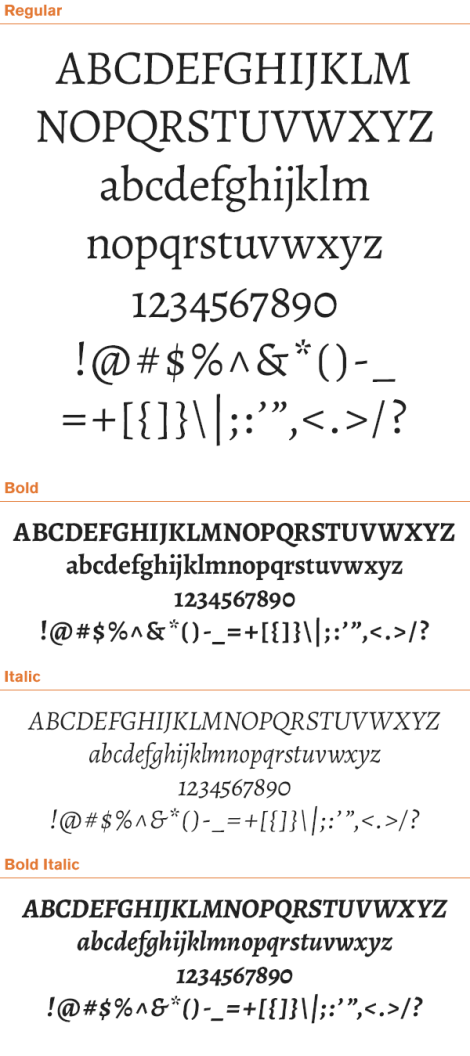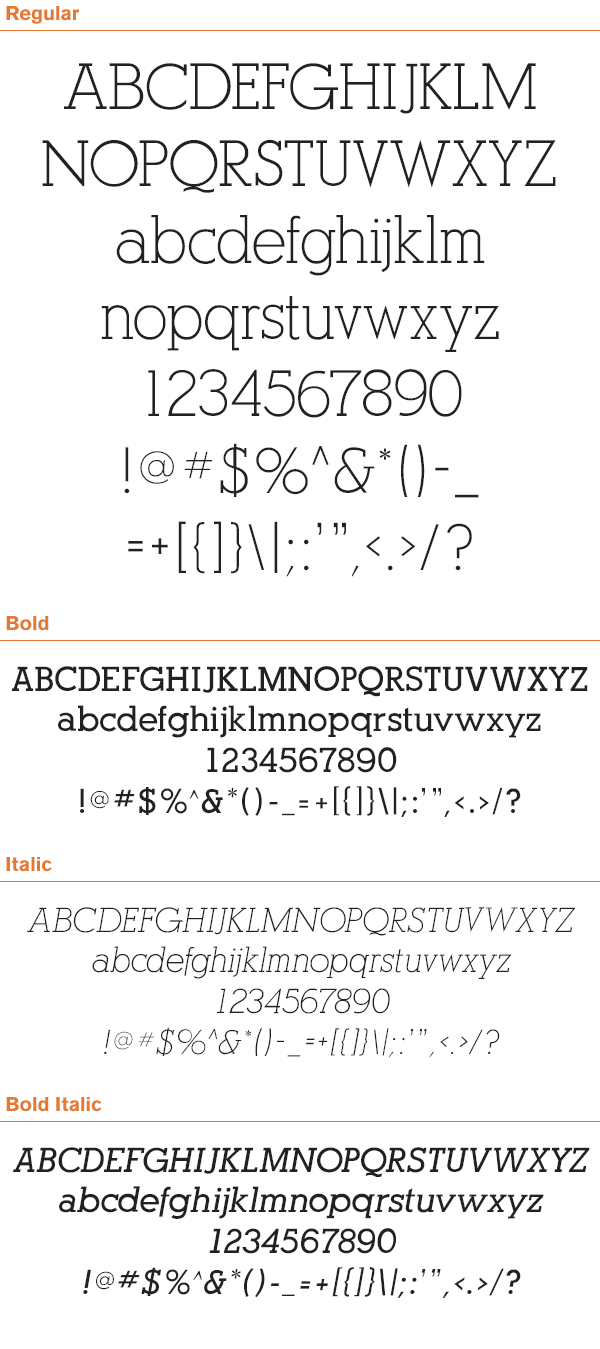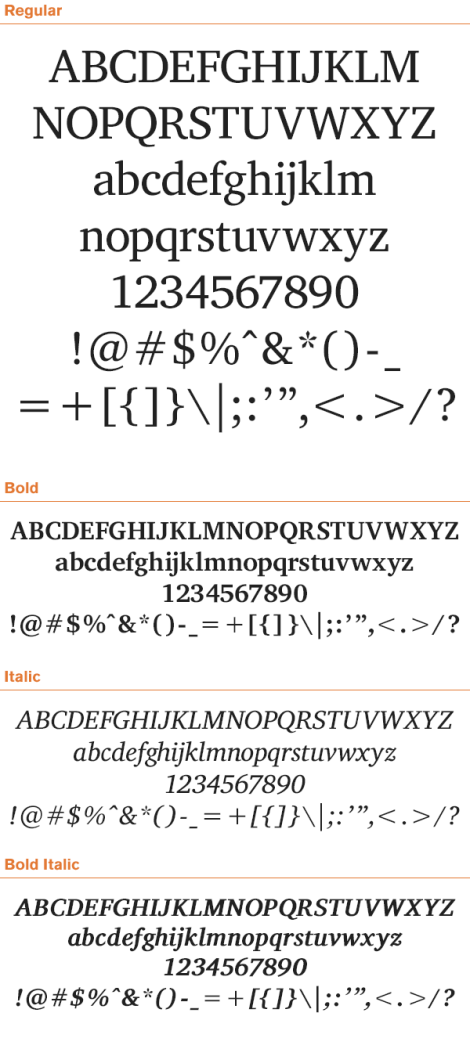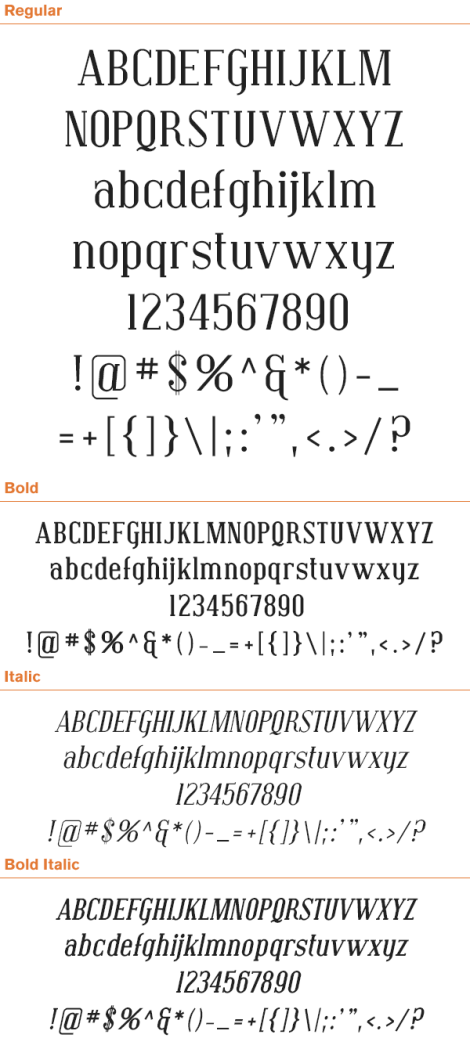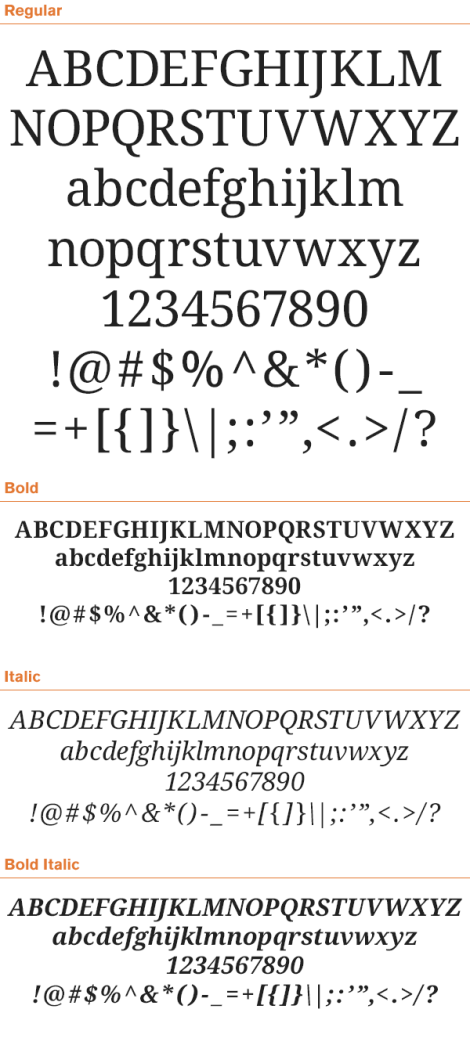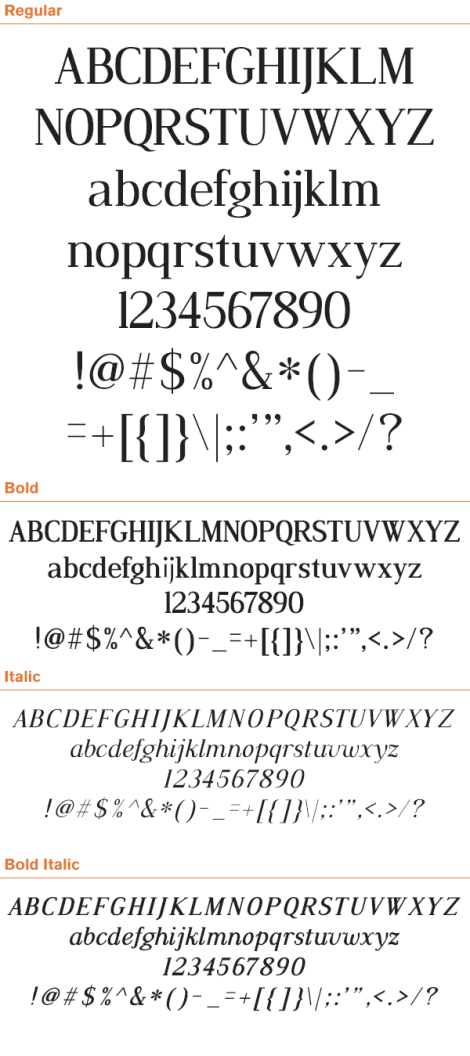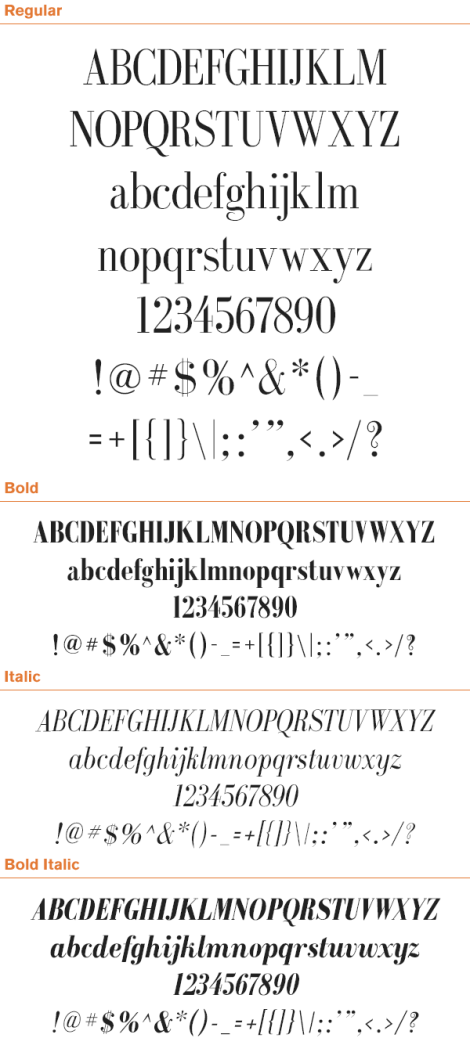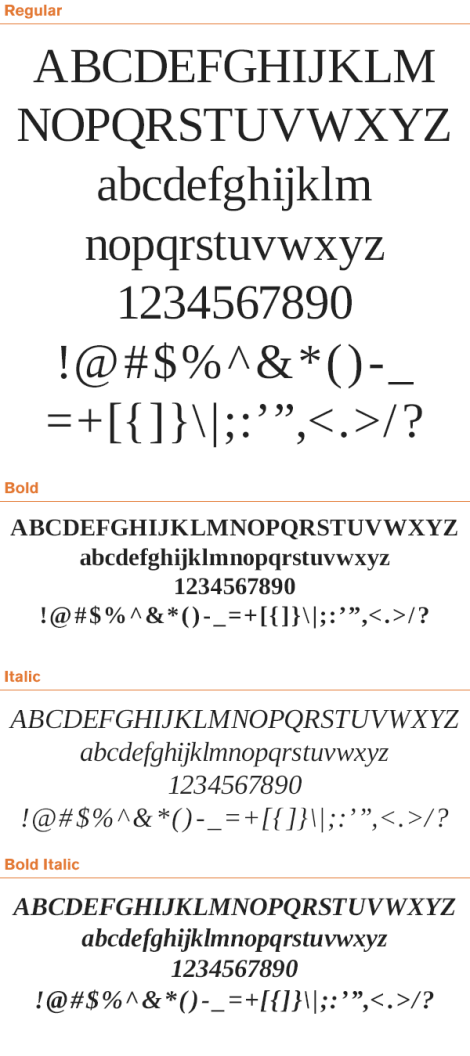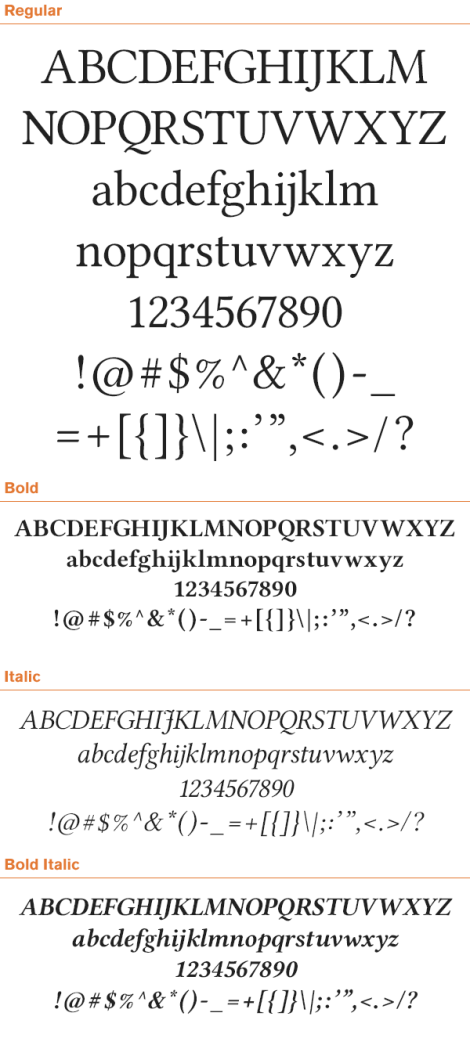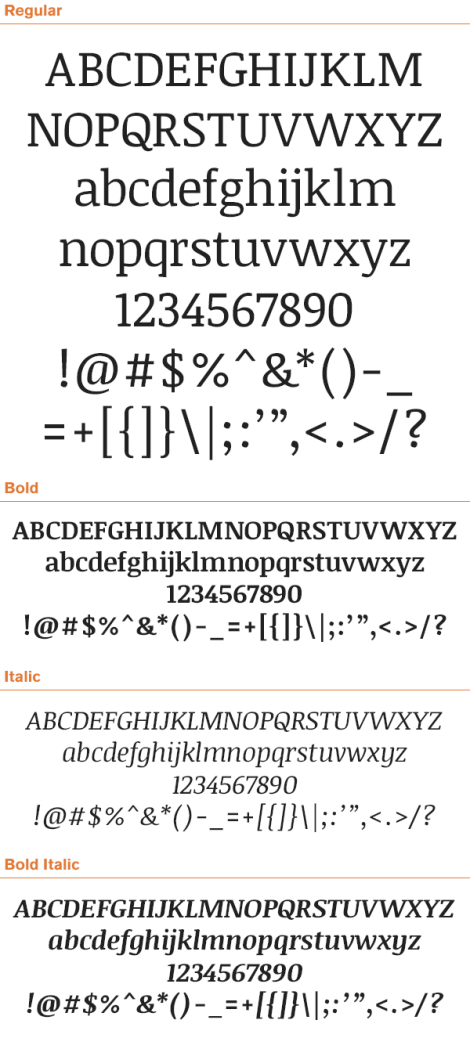
14 Top Free Serif Fonts with Multiple Weights
free-serif-fonts If you have a growing collection of usable free sans-serif fonts, you need free serif fonts to complement them. Serifs are one of the foundational types of fonts — many appear on every best fonts list for good reason. Our recent article on the most popular free sans-serif fonts outlined four criteria we came up with to navigate the morass of free fonts readily available on the web. We came up with the best 14, we think. Take a look at that article so we don’t have to repeat the text here, and so that we can get on with our list of free serif fonts. The only criteria we will repeat for clarity, just in case you don’t jump over to the previous article, is this one:
• The typeface must have Normal, Bold, Italic, and Bold Italic weights
Serif fonts, unless specifically designed for display and decorative usage, really need these four weights to be useful. You could get a way with not having a bold italic face, granted. However, a typeface that includes all four of these basic weights is likely to have had a lot of attention paid to it, and it’s that attention to detail that indicates the completeness and usefulness of each of the fonts in the typeface. The popularity of these individual serif typefaces wasn’t possible to determine and sort, among and against themselves. Therefore, they are presented alphabetically. Overall, these typefaces are the most popular among all free serif typefaces that met our criteria, according to the various typography resources we consulted. And remember, all that’s left after getting a collection of the best free sans serif and the best free serif fonts is how to combine them! Stay tuned for that article. But for now, make use of this list and start downloading these serifed freebies. NOTE: click images to enlarge
14 Top Free Serif Fonts with Multiple Weights
Alegreya
free-serif-fonts-alegreya
Alexandria
free-serif-fonts-alexandria
Charis
free-serif-fonts-charis
Covington
free-serif-fonts-convington
Droid Serif
free-serif-fonts-driod-serif
Dustismo
free-serif-fonts-dustismo
Galileo
free-serif-fonts-galileo
Latin Modern Roman
free-serif-fonts-latin-modern-roman
Liberation Serif
free-serif-fonts-liberation-serif
Linux Libertine
free-serif-fonts-linux-libertine
Noticia Text
free-serif-fonts-noticia-text
Portland
free-serif-fonts-portland-ldo
PT Serif
free-serif-fonts-pt-serif
TeX Gyre Schola
free-serif-fonts-tex-gyre-schola
Portland’s “italics” sure look like sloped Romans to me…